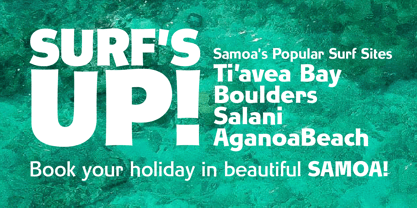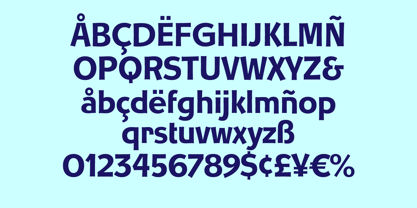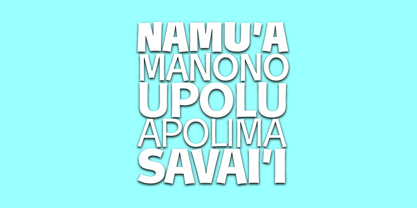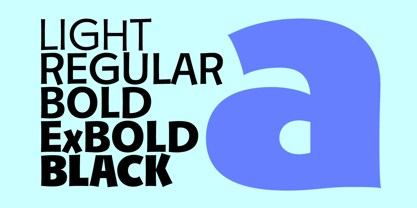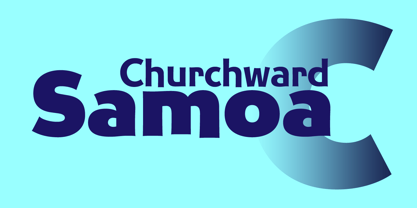
Churchward Samoa™
by BluHead Studio
The Churchward Samoa Font Family was designed by Joseph Churchward and published by BluHead Studio. Churchward Samoa contains 5 styles and family package options. More about this family
Churchward Samoa is a casual sans serif typeface drawn by the late Joseph Churchward. Featuring a subtle inward curve on the straight strokes and random terminal ends aligning high or low, Churchward Samoa becomes animated in a friendly way, suggesting friendliness and warmth, much like the Polynesian people themselves. Churchward had a knack for imparting the culture and vibe of the Polynesian South Sea in his hand-drawn typefaces, and Churchward Samoa is a perfect example of that talent. Each font has a set of proportional and tabular figures, and the extended character set supports many Western European languages.
Designers: Joseph Churchward